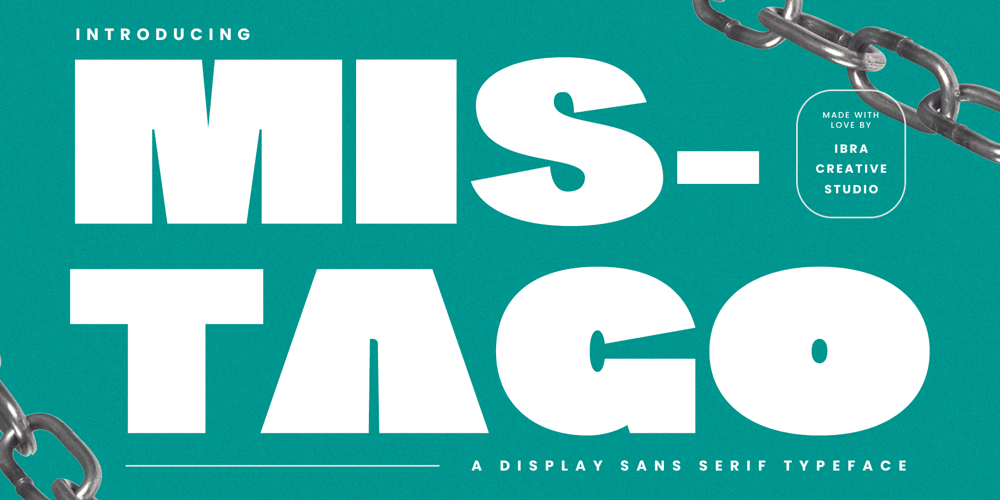
Mistago Font Family was designed by Roisatul Azizah and published by IbraCreative. Mistago contains 1 styles and family package options. Mistago – A Display Sans Serif TypefaceMistago, a captivating display sans serif typeface, boasts clean lines and bold strokes that command attention on any design canvas. With its modern yet timeless aesthetic, Mistago effortlessly bridges the gap between elegance and versatility. Each letter is meticulously crafted with a perfect balance of simplicity and sophistication, making it ideal for headlines, branding, posters, and editorial design projects. The generous letter spacing and sharp edges of Mistago ensure readability even at large sizes, while its distinct character adds a touch of personality to any composition. Whether used for digital or print media, Mistago stands out as a bold statement font, elevating the visual impact of any message it conveys. Mistago is perfect for branding projects, logo, wedding designs, social media posts, advertisements, product packaging, product designs, label, photography, watermark, invitation, stationery, game, fashion and any projects.Fonts include multilingual support for; Afrikaans, Albanian, Czech, Danish, Dutch, English, Estonian, Finnish, French, German, Hungarian, Italian, Latvian, Lithuanian, Norwegian, Polish, Portuguese, Slovak, Slovenian, Spanish, Swedish.